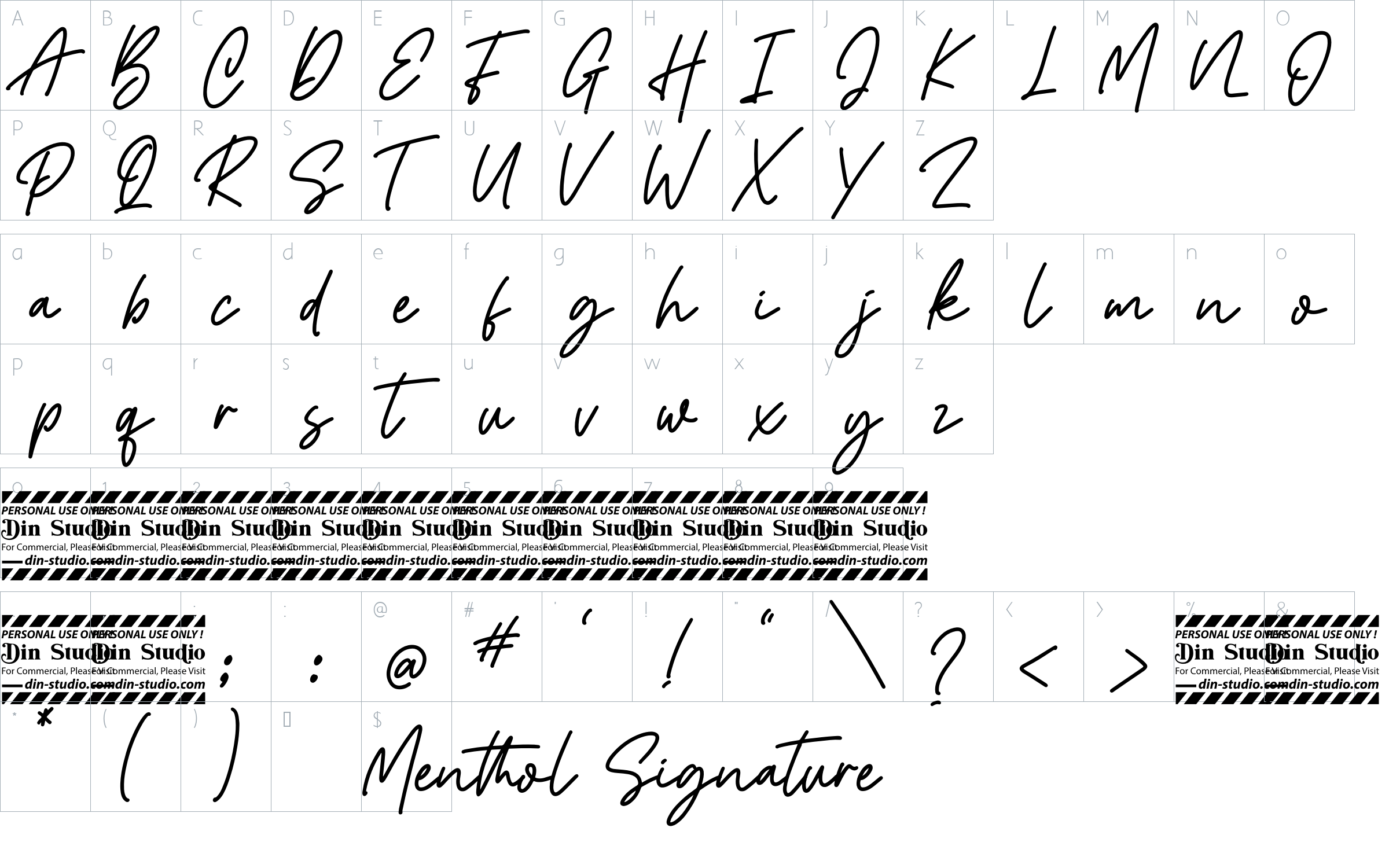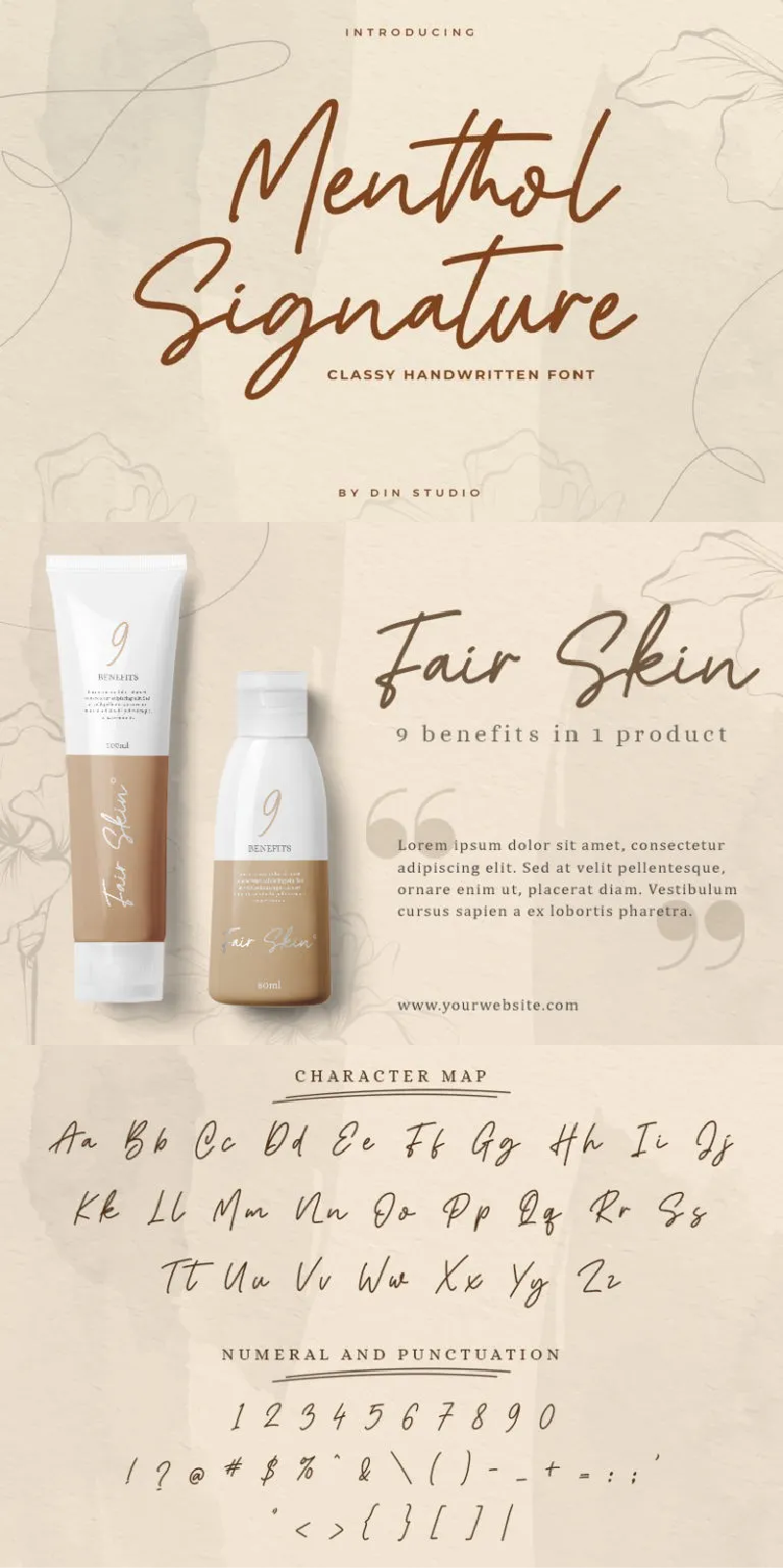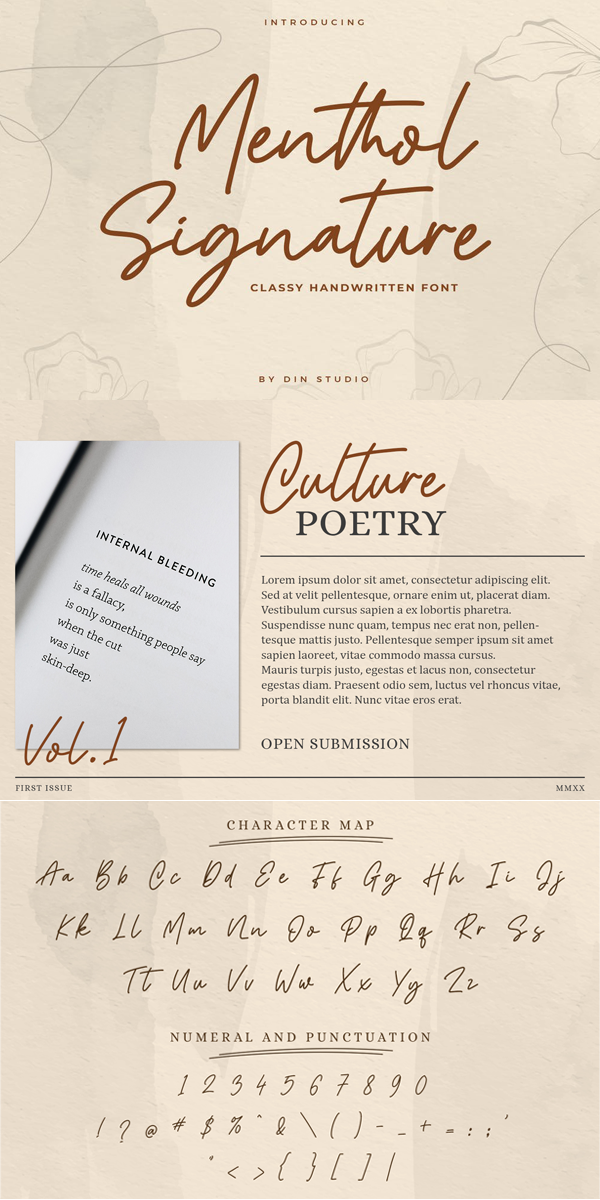
Menthol Signature Font
About Menthol Signature
Menthol Signature is a classy monoline font made for any professional project brandings. Every letter has a unique and beautiful touch. The font includes a full set of hand lettered uppercase and lowercase letters, numerals, punctuations, and ligatures. Menthol Signature gives realistic hand lettered style. See the previews above to get some inspiration on how you can use them. Enjoy the font!